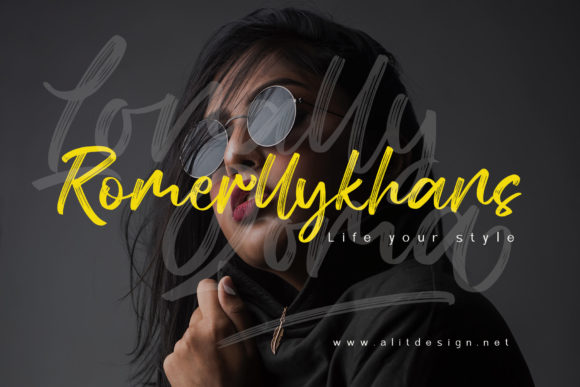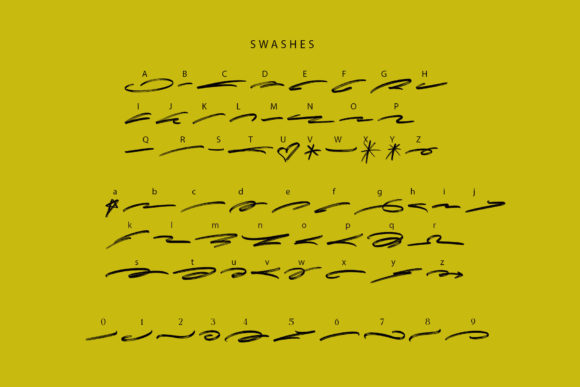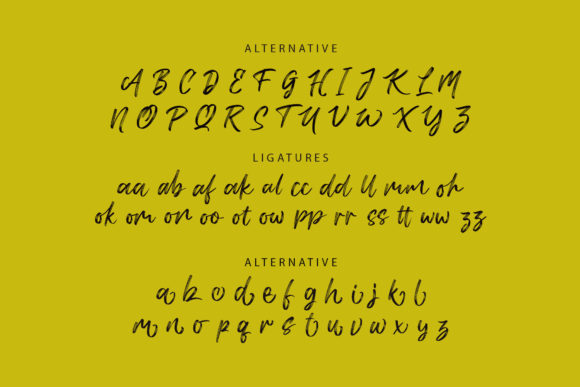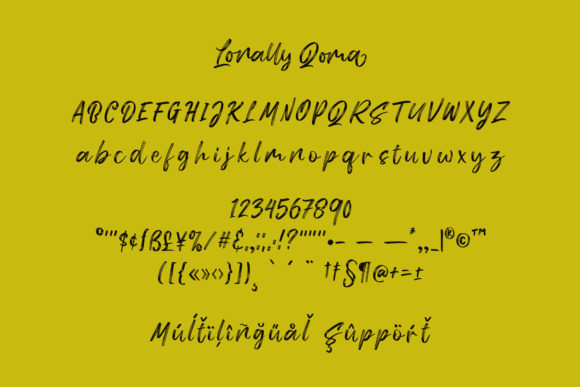
About Lonally Qoma Font
Lonally Qoma is a brushed and beautiful handwritten font. It looks beautiful on a variety of designs requiring a personalized style, such as wedding invitations, thank you cards, weddings, greeting cards, logos and so on.